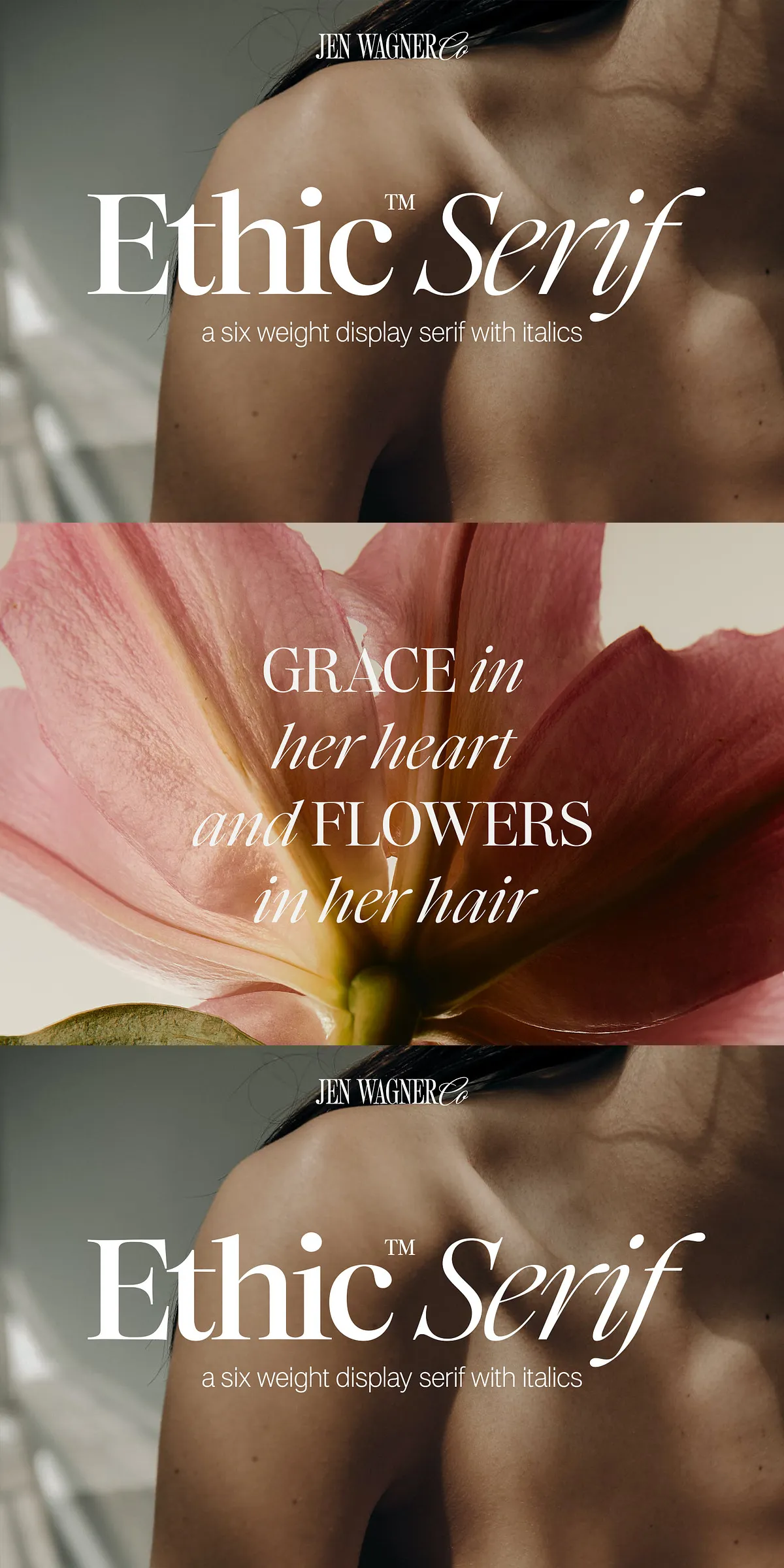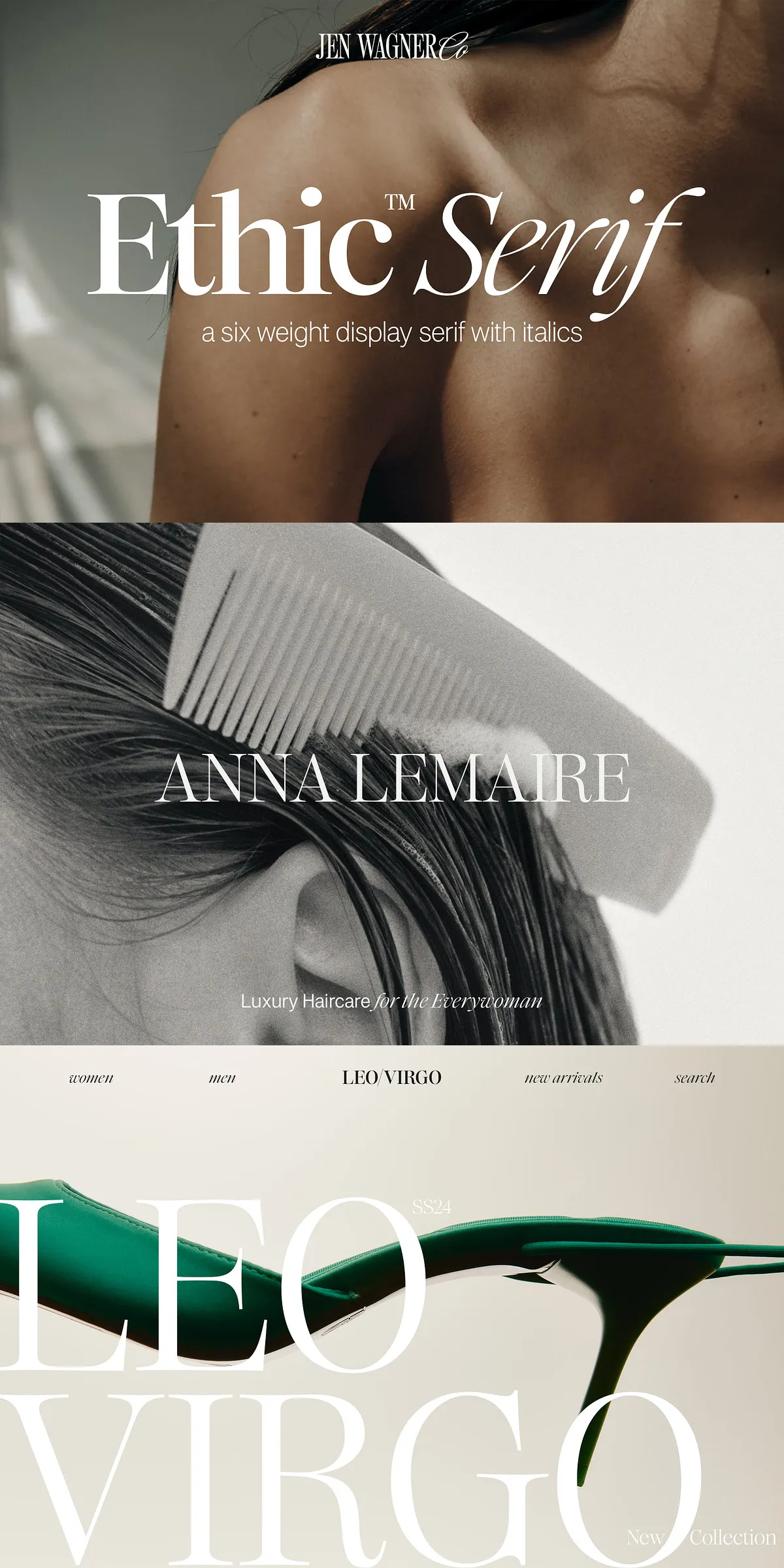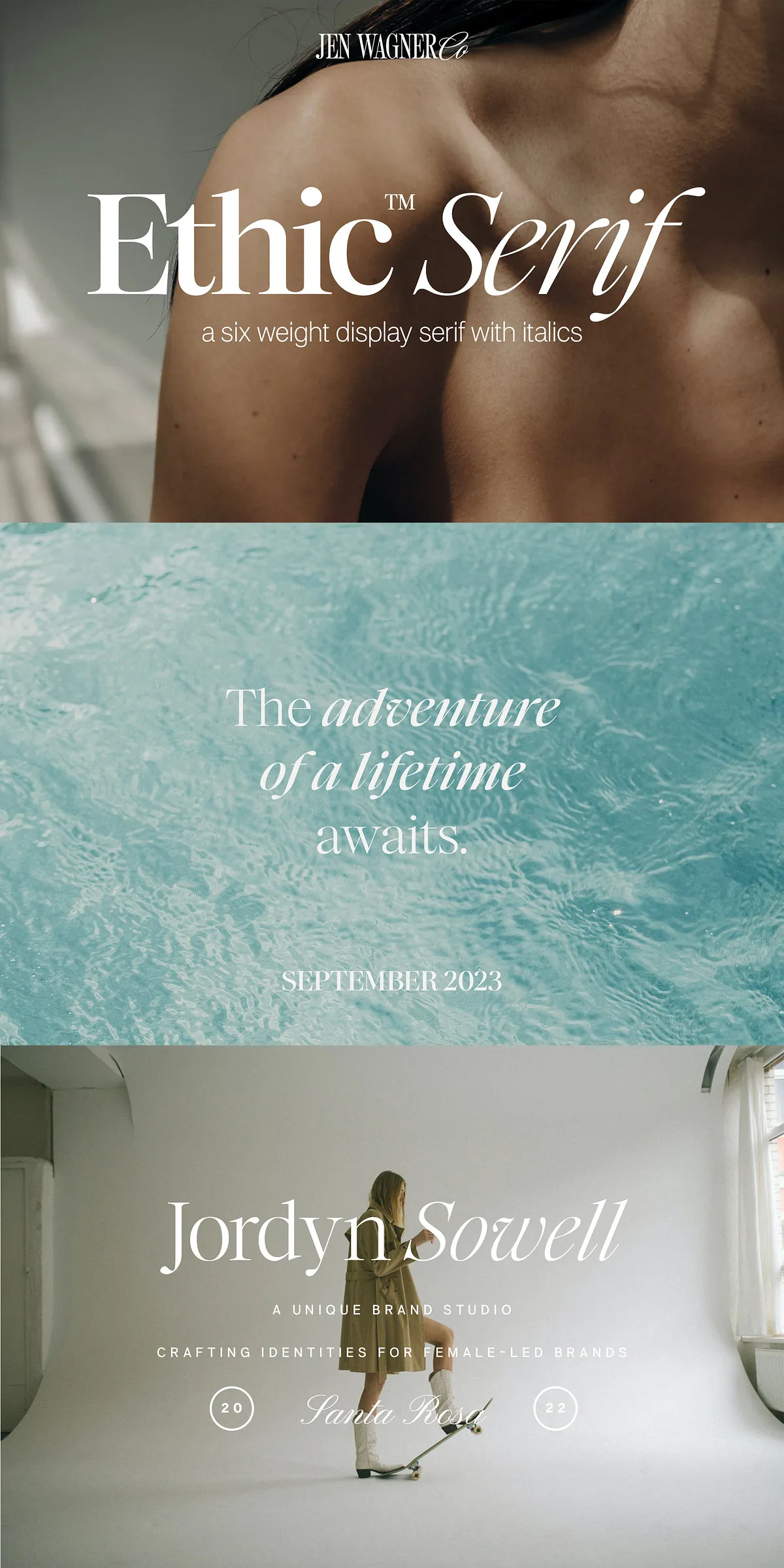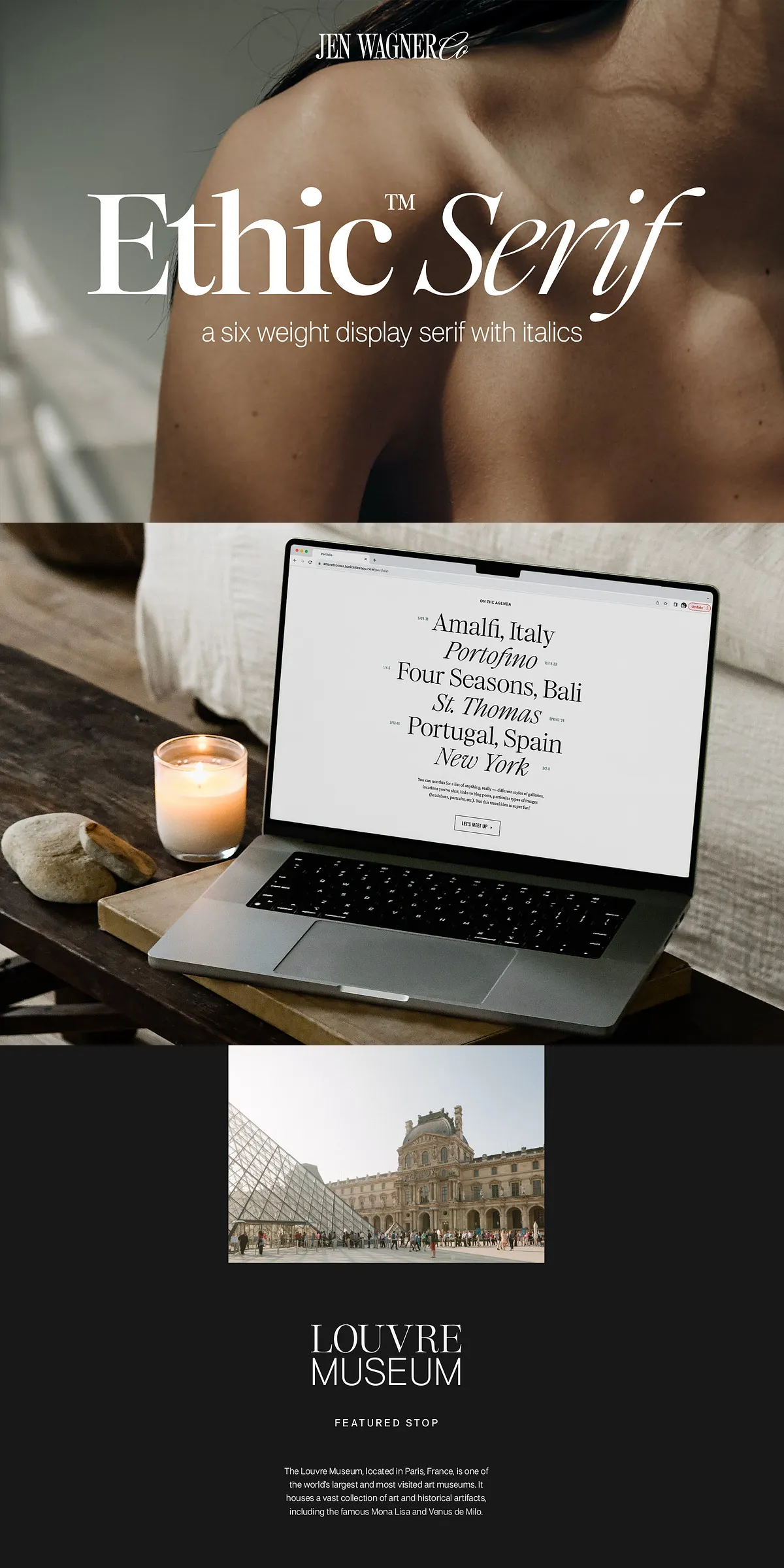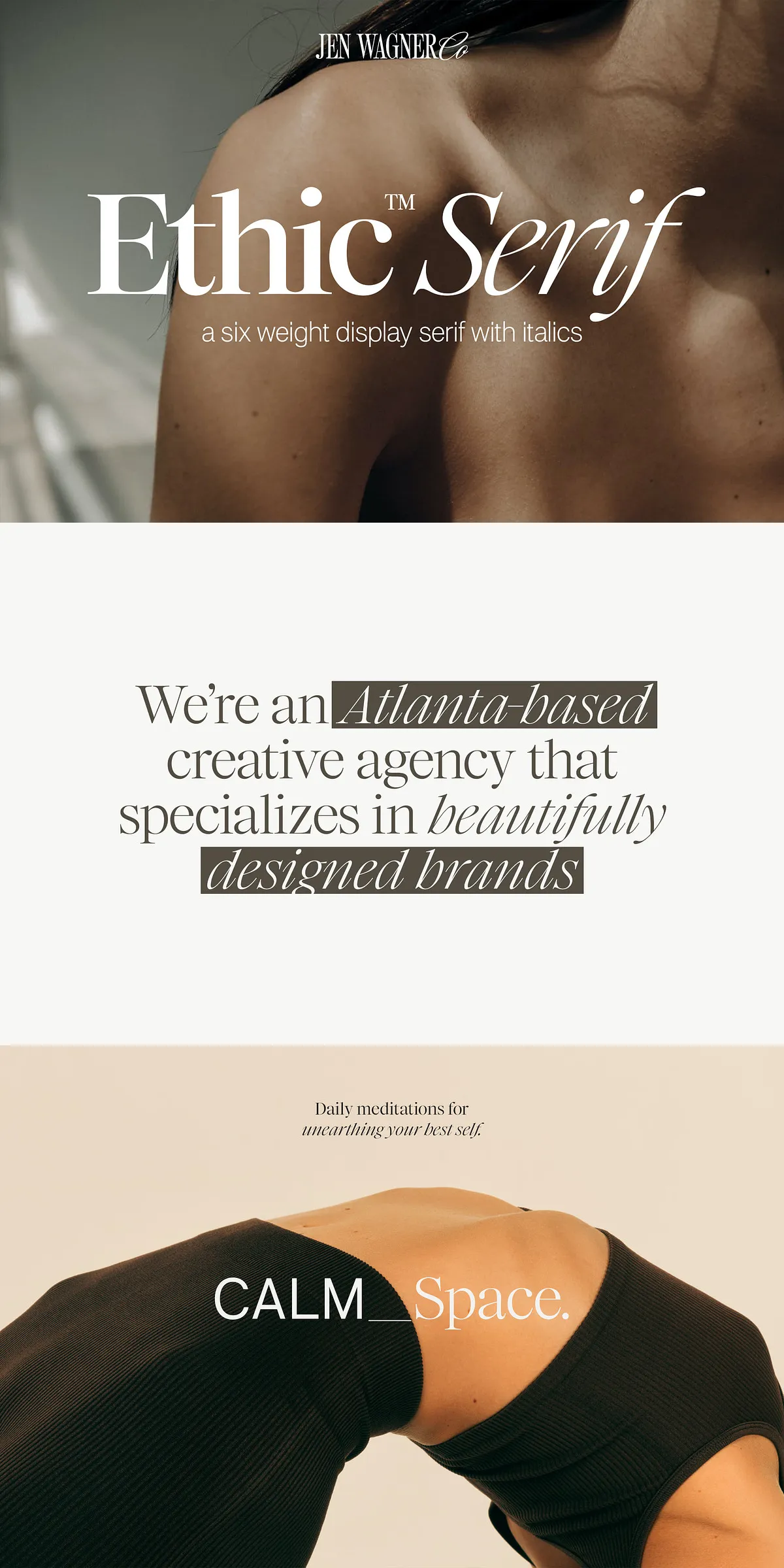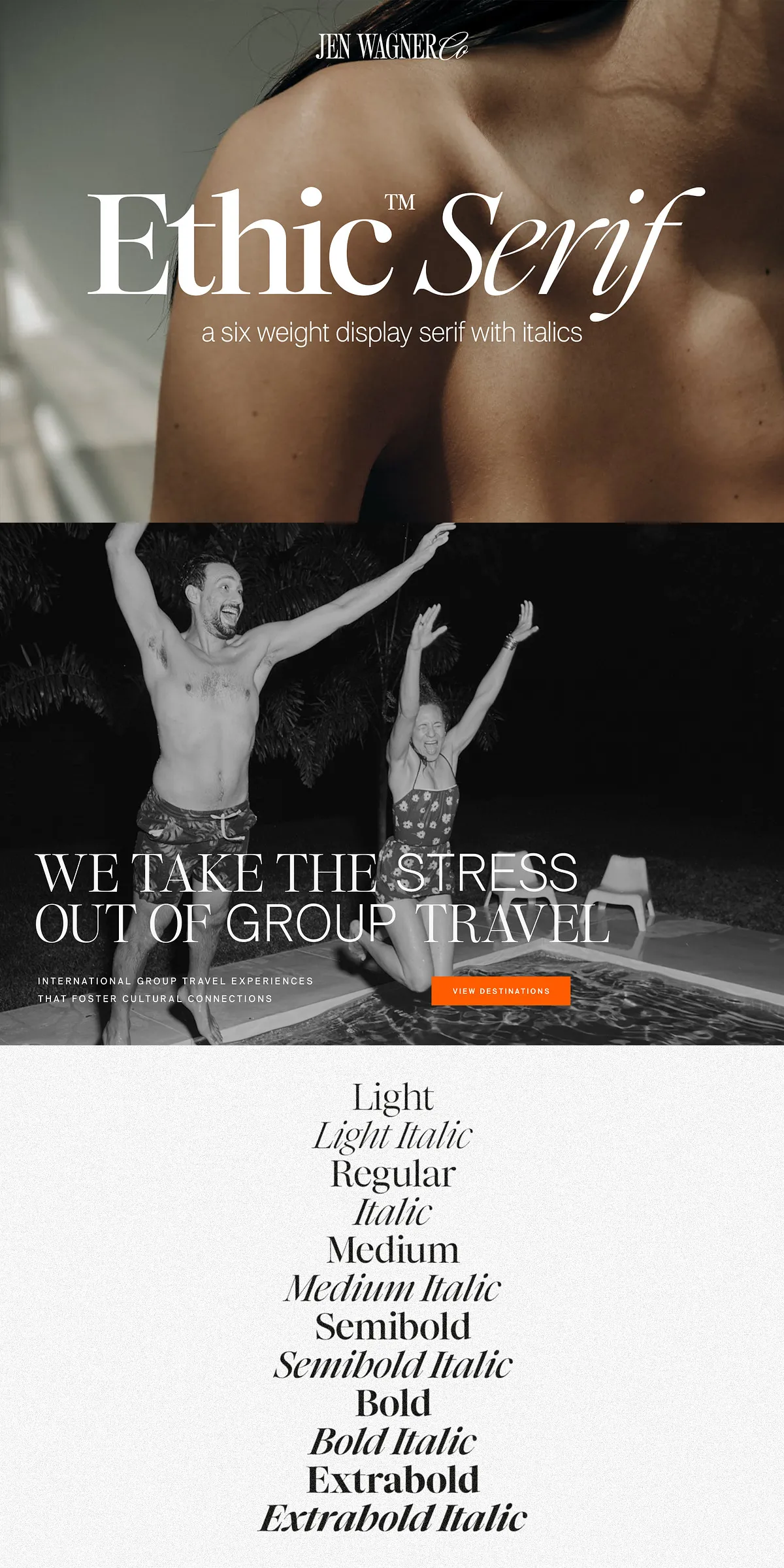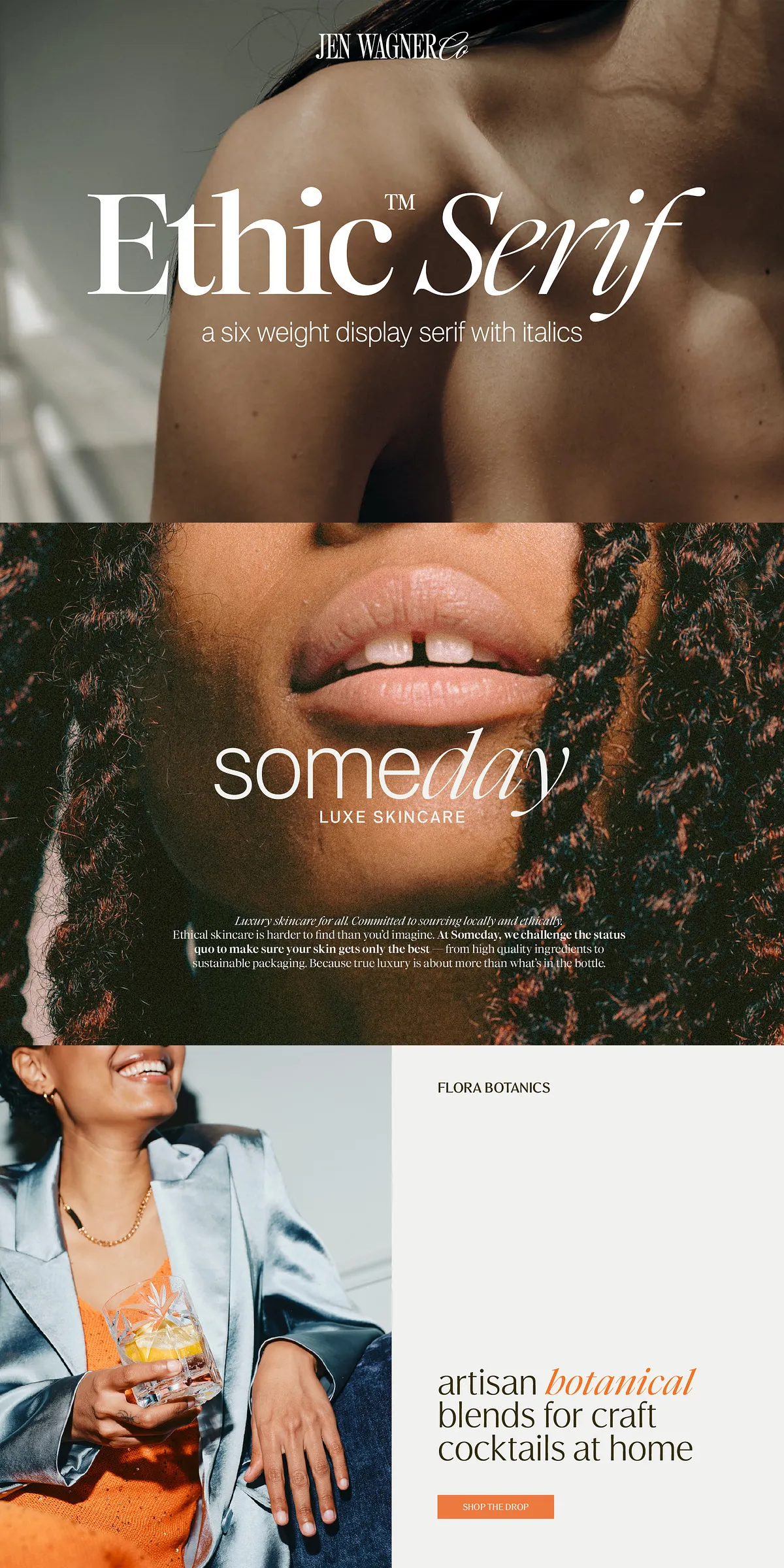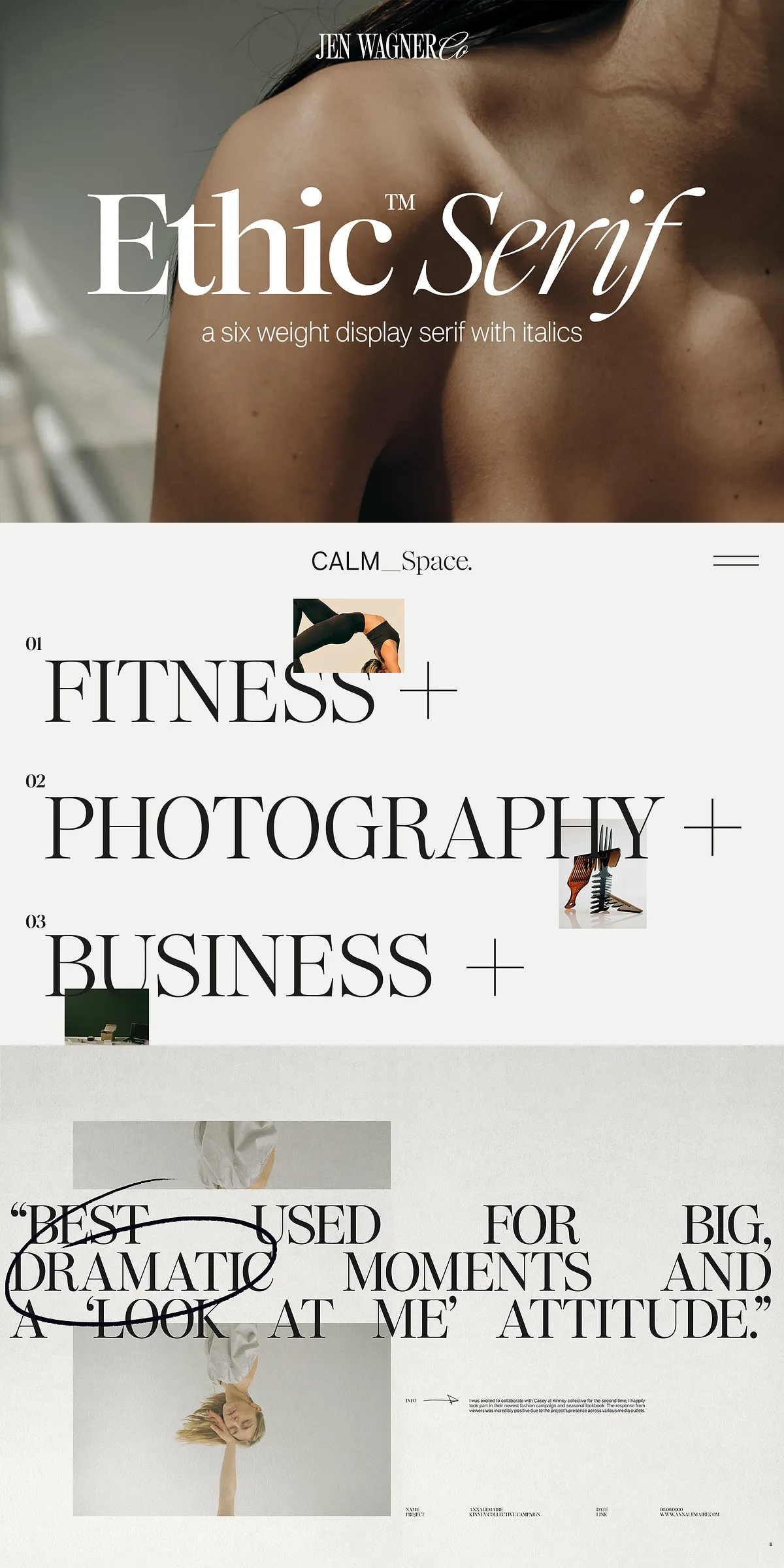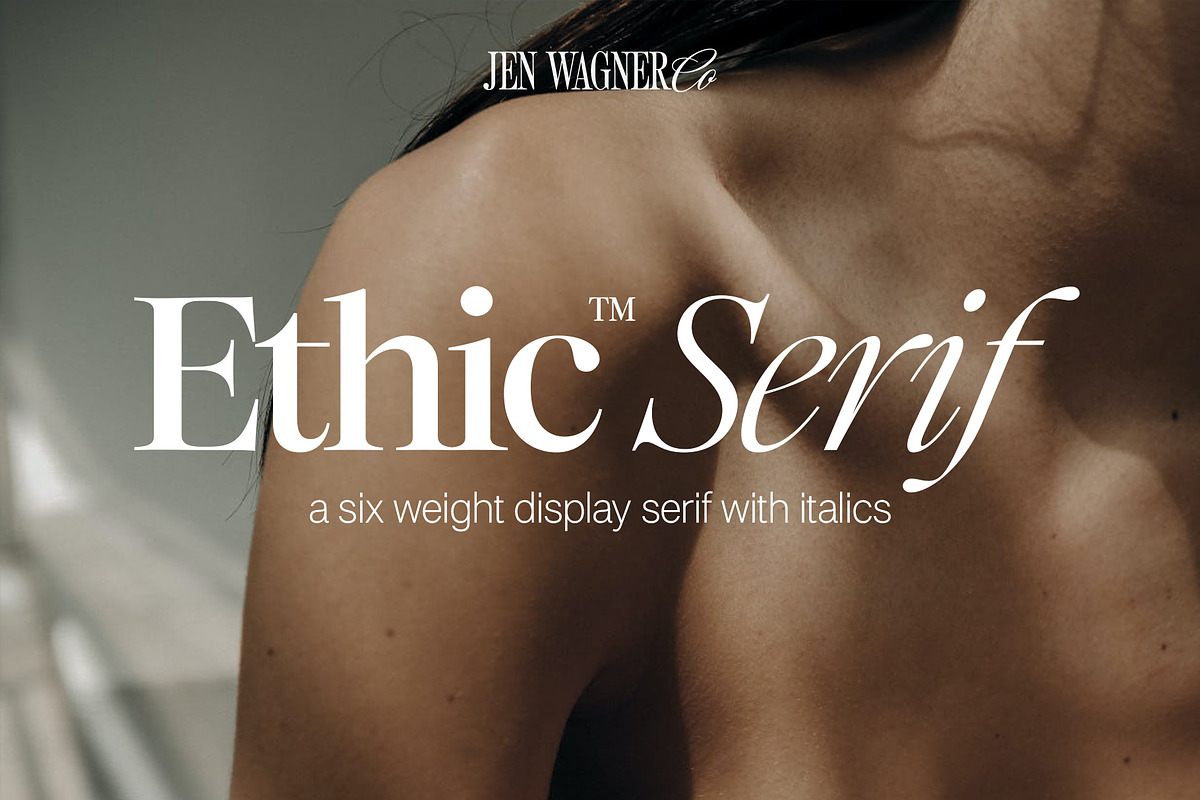
Step into the spotlight with Ethic™ Serif — a typeface built not just to be seen, but to be remembered. Formerly known as Times Neutra, this refined serif family has been completely reimagined for the modern era, blending classic proportions with contemporary sophistication. Designed to dominate large-scale layouts, Ethic™ Serif thrives in headers, powerful quotes, and branding elements where impact is key. It’s not just a font — it’s a statement.
Why Ethic™ Serif Is the Ultimate Centerpiece Typeface
When you need a serif that doesn’t just blend in — but *leads* the visual narrative — Ethic™ Serif delivers. Its dramatic contrast between bold serifs and delicate stems creates a dynamic rhythm across the page. Each letterform is precision-crafted with organic, flowing curves that feel both timeless and freshly alive. And the italics? They’re not mere slants — they’re dramatic, high-contrast companions that add depth, motion, and elegance to every sentence they touch.
Powerful Features for High-Impact Design
- 6 Full Weights: From delicate Light to commanding Extrabold, choose the perfect tone for your message — each weight maintains perfect clarity and character at any size.
- Complete Italic Pairings: Every regular weight comes with a meticulously designed italic, ensuring cohesion and visual harmony across your entire layout.
- Rich OpenType Feature Set: Access advanced typographic controls including proportional and tabular figures, small caps, discretionary ligatures, and stylistic alternates.
- Comprehensive Language Support: Offers full coverage for European languages, including French, German, Italian, Spanish, Dutch, and Scandinavian languages, plus full support for international characters.
- Professional-Grade Numbers & Punctuation: Includes case-sensitive numerals, fractions, ordinals, and ligatured punctuation for editorial and luxury branding excellence.
Built for Luxury Branding & Design-First Projects
Ethic™ Serif was made for high-end branding, editorial design, fashion portfolios, and any project where typography isn’t just functional — it’s central to the message. Its refined structure exudes confidence, making it ideal for:
- Hero Headlines & Banner Text: Turn single words into unforgettable focal points.
- Luxury Product Launches: Elevate packaging, lookbooks, and campaign visuals with a bold, classic presence.
- Editorial & Magazine Design: Use in feature stories, pull quotes, and sidebar layouts for a touch of editorial grandeur.
- Website & App UI: Perfect for section headers, testimonials, and navigation elements that need authority and elegance.
- Photography & Art Book Titles: Add a refined, cinematic feel to visual storytelling projects.
Pro Tip: Pair With Neue Swiss for Maximum Effect
As the creator often notes — “The more I use Ethic™ Serif, the more I love it paired with Neue Swiss.” This combination creates a balanced, modern contrast: the classic weight and elegance of Ethic™ Serif against the clean, neutral structure of Neue Swiss. The result? A design hierarchy so sharp, it speaks before a single word is read.
- 6 Weights: Light, Regular, Medium, Semibold, Bold, and Extrabold — each with their matching italic.
- Complete Character Set: Full punctuation, advanced numerals, ligatures, small caps, and multilingual glyphs.